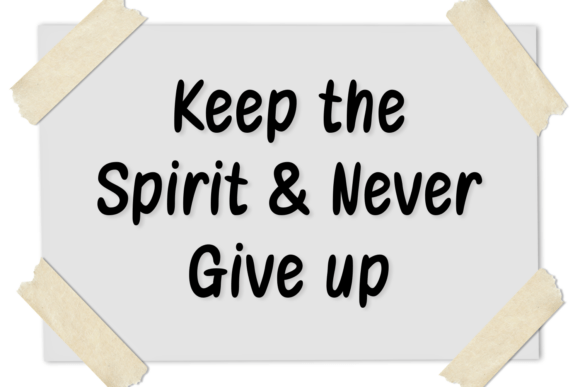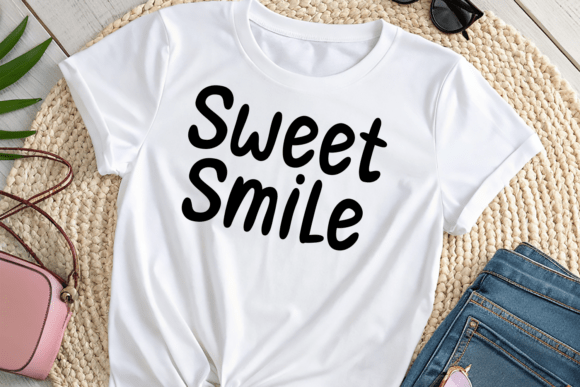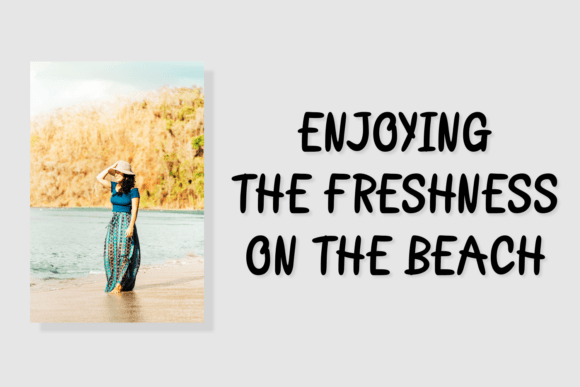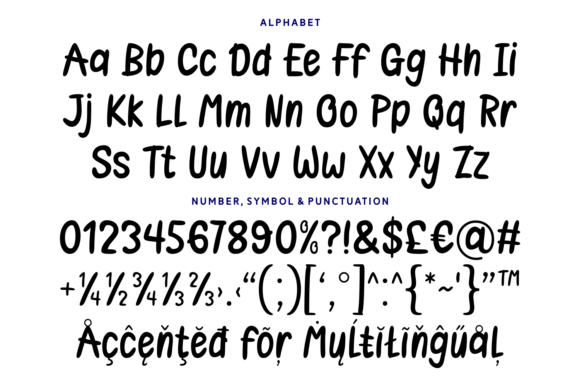
Introduction to Limited Patience Font
Limited Patience is a sleek, handwritten font with minimalist charm and monoline style.
Perfect for logos, prints, Cricut projects, and seasonal designs like Valentine’s Day or Christmas It balances elegance and readability across stylesโcrafty or bold, romantic or professional.
Key Features of Limited Patience Font
Why Choose Limited Patience Font?